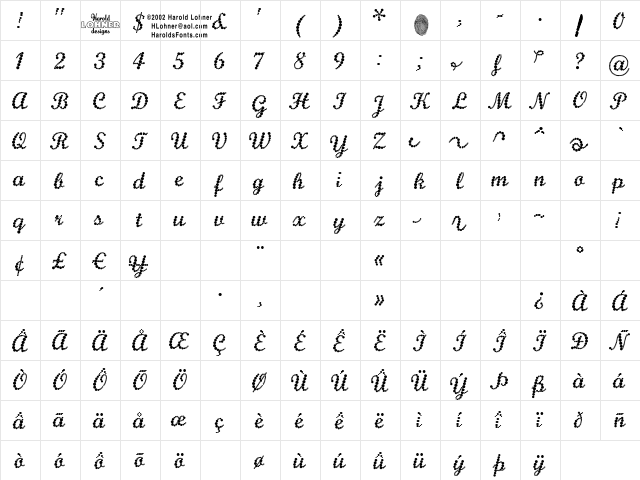
Pearlie Regular
Design Context for Pearlie Typeface
Pearlie takes a measured approach to typography — its balanced proportions and neutral character make it a reliable workhorse for both digital and print work.